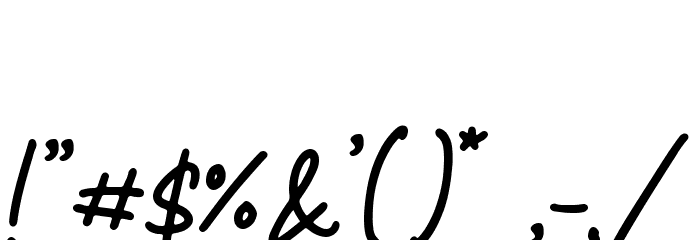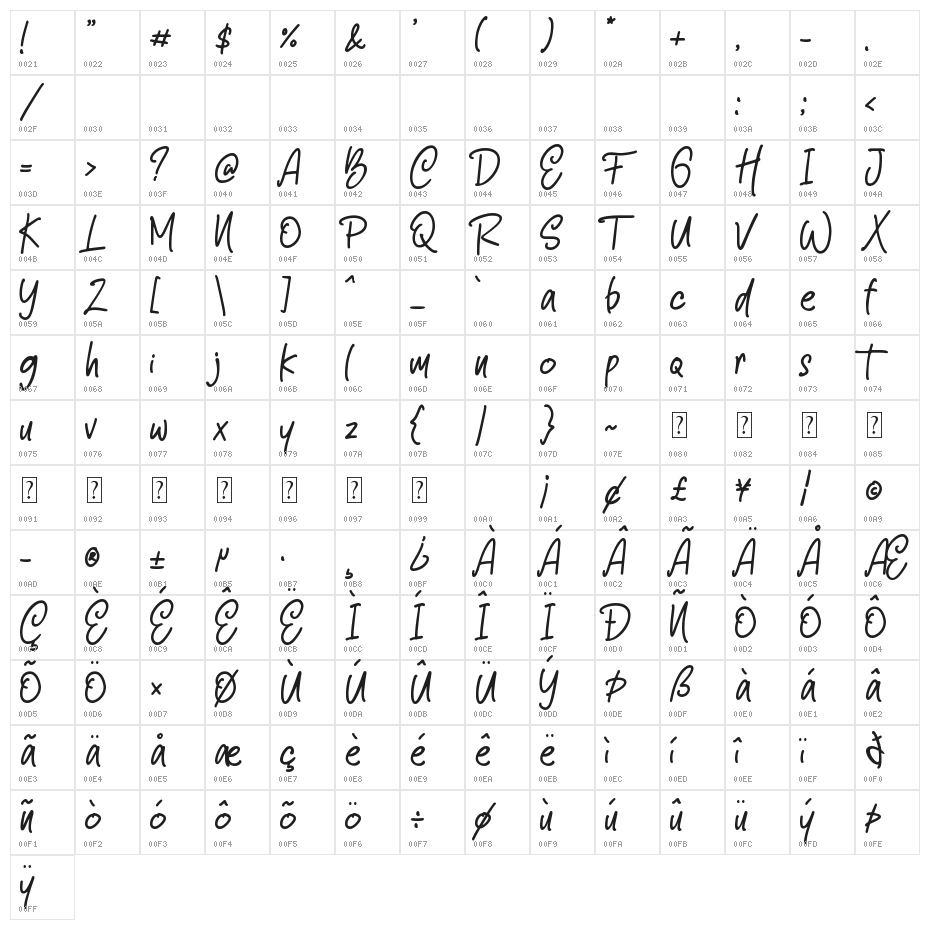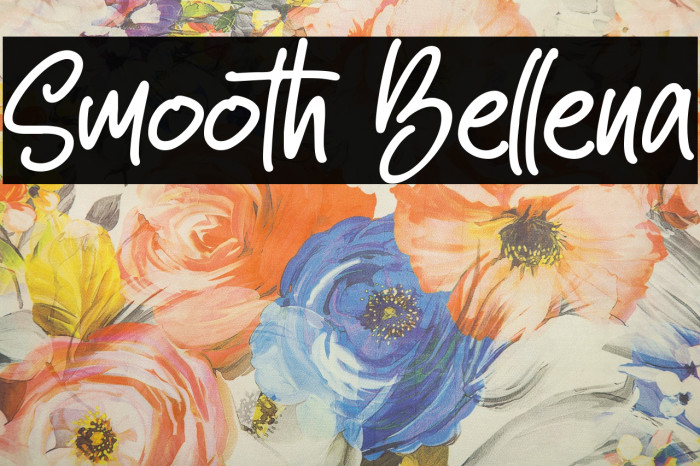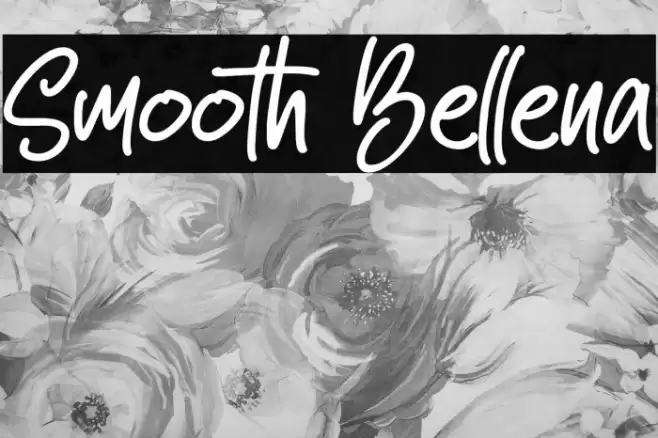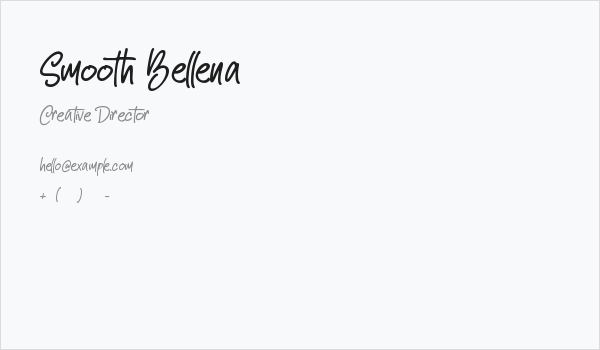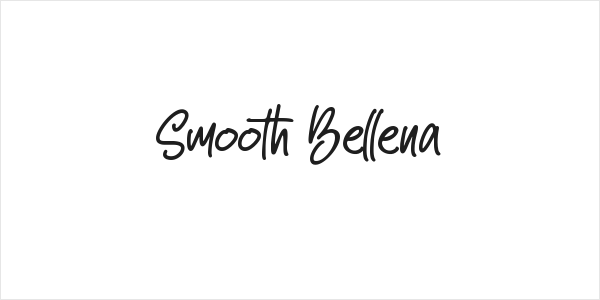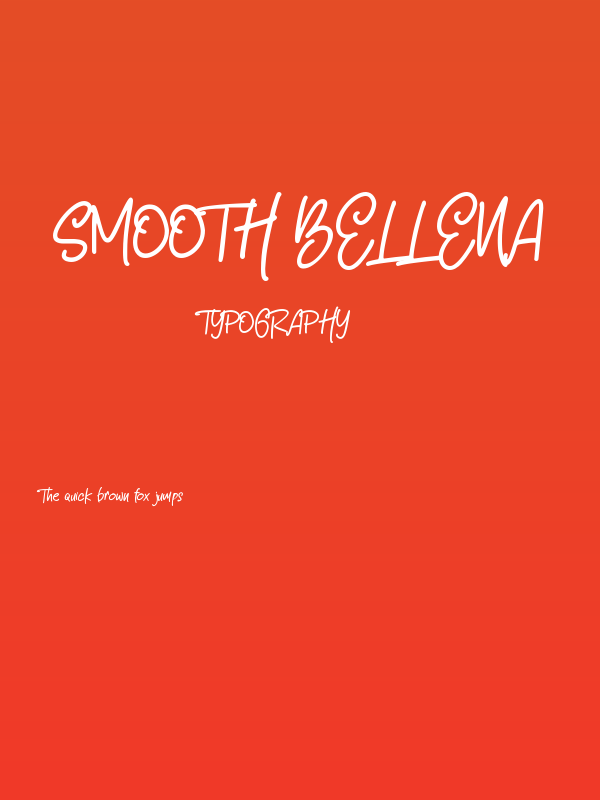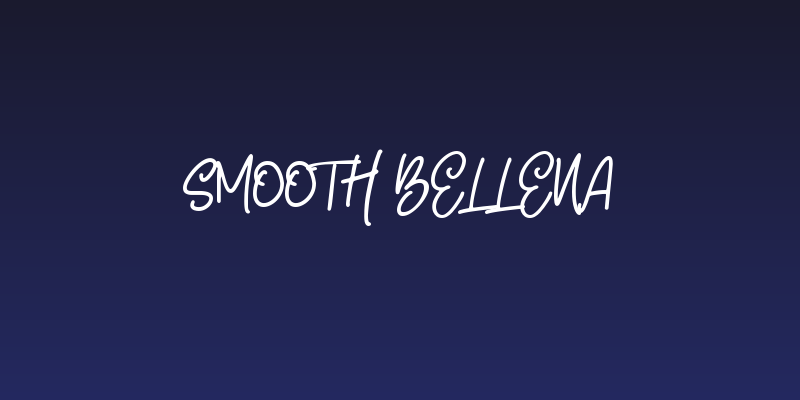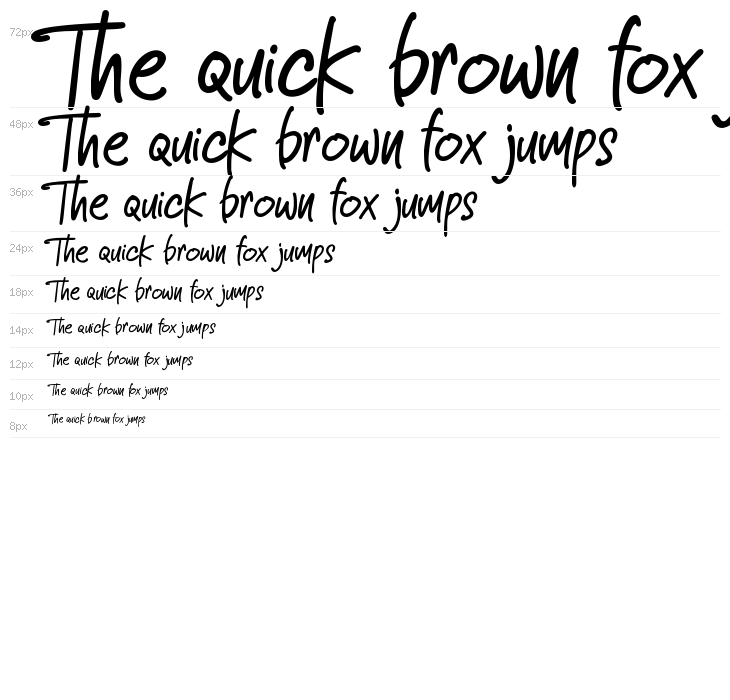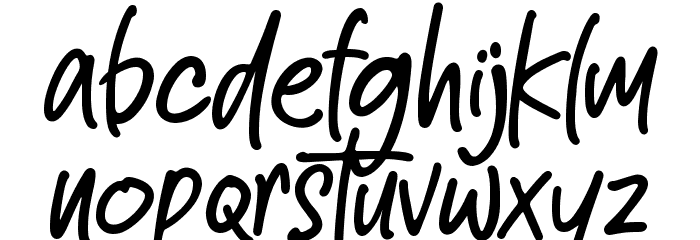
Smooth Bellena Font
Smooth Bellena Description
This font exudes a playful and energetic vibe with its handwritten style. The letters are crafted with a smooth, flowing script that gives a sense of movement and dynamism. The uppercase letters are bold and slightly slanted, while the lowercase letters maintain a consistent rhythm with a touch of whimsy. The strokes are moderately thick, providing a balanced contrast that enhances readability without sacrificing style. Special characters are integrated seamlessly, maintaining the font's cohesive look. This font is perfect for projects that require a personal, informal touch, such as greeting cards, invitations, or creative branding.
| Overall Style | Playful, Energetic |